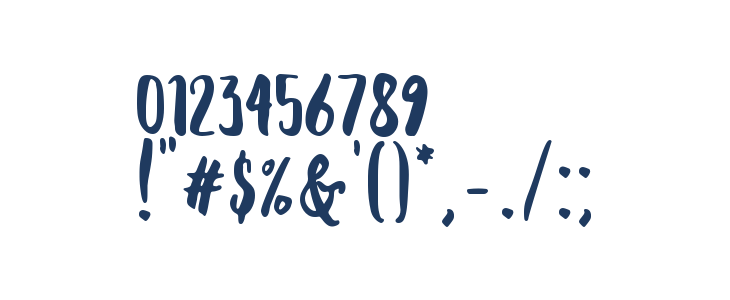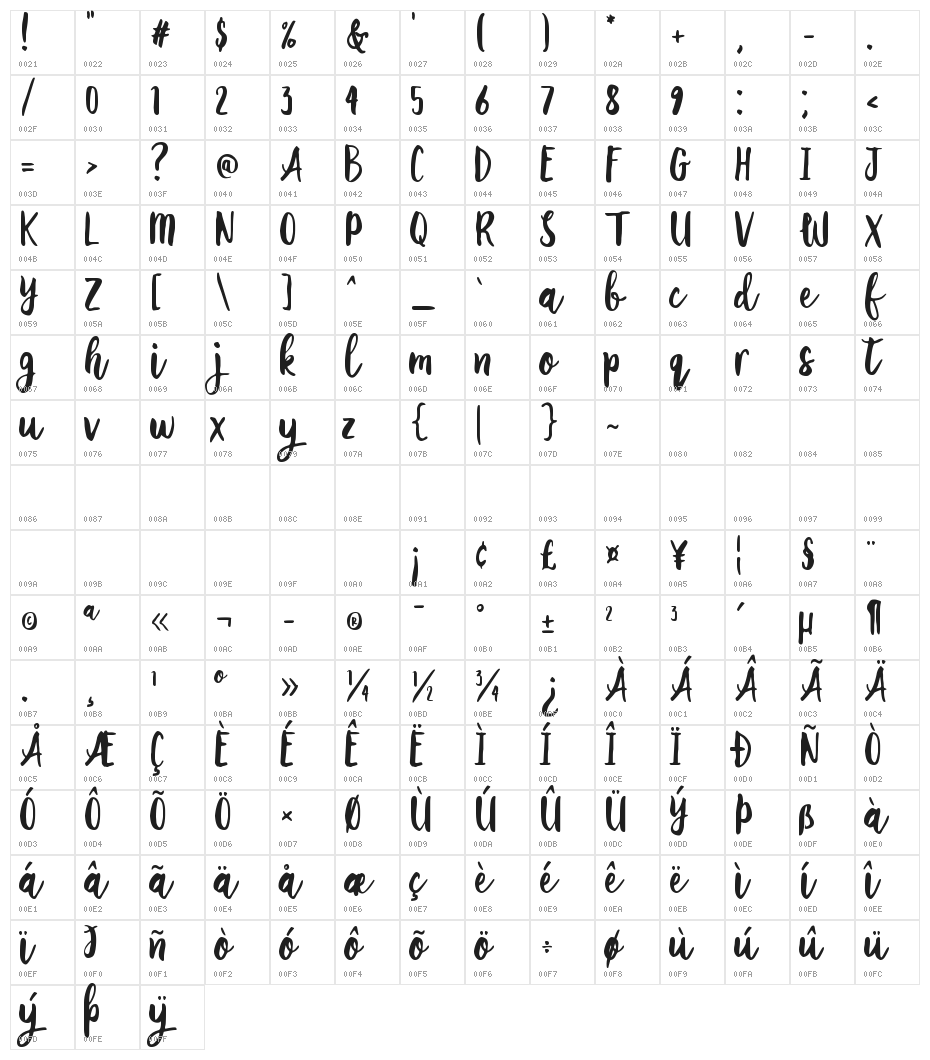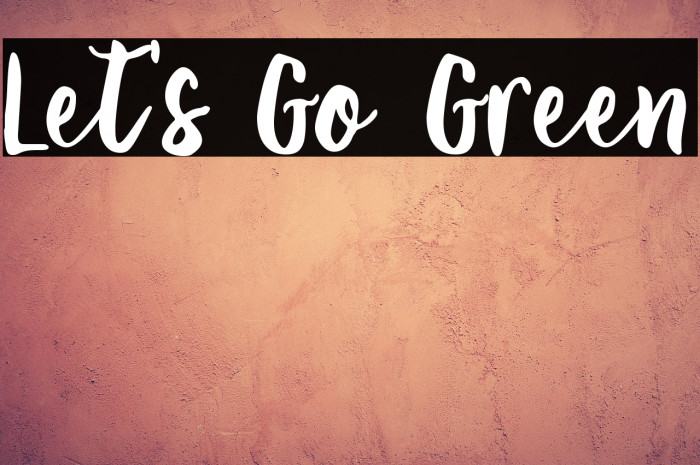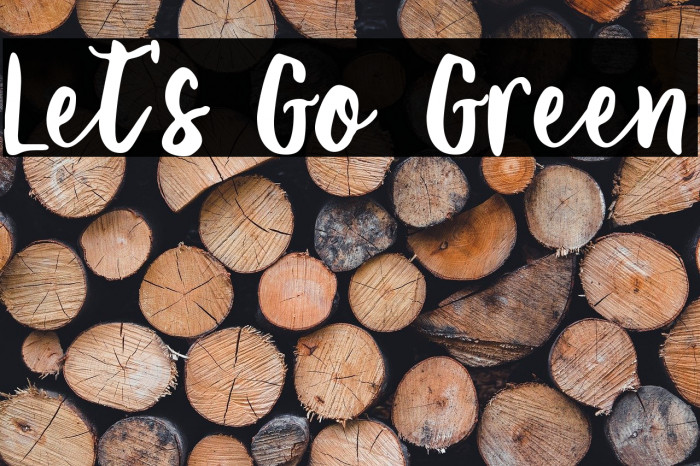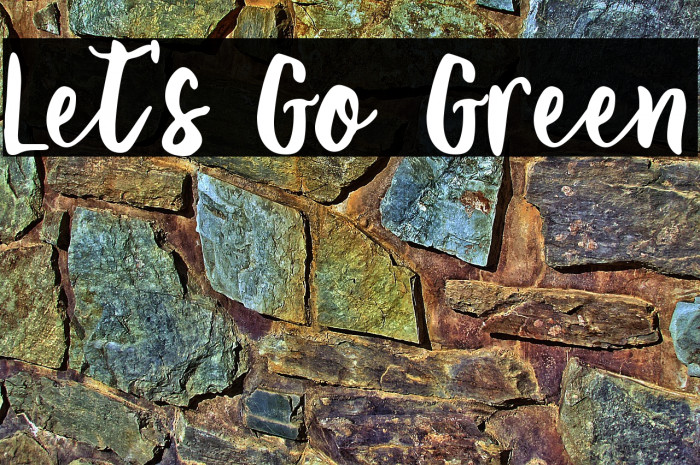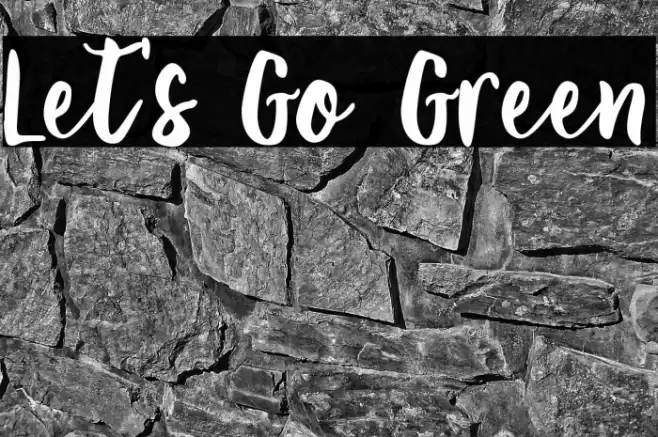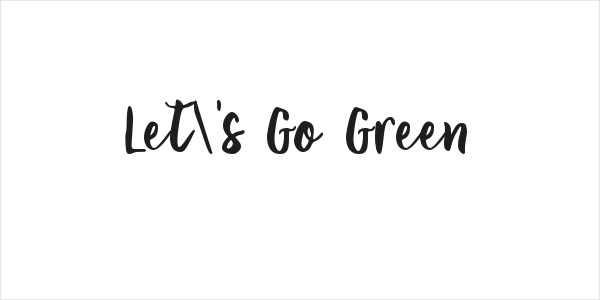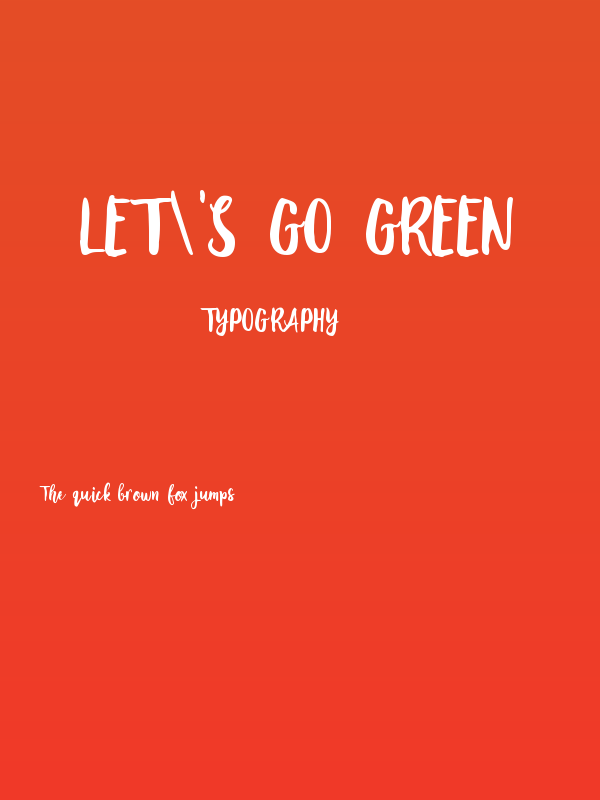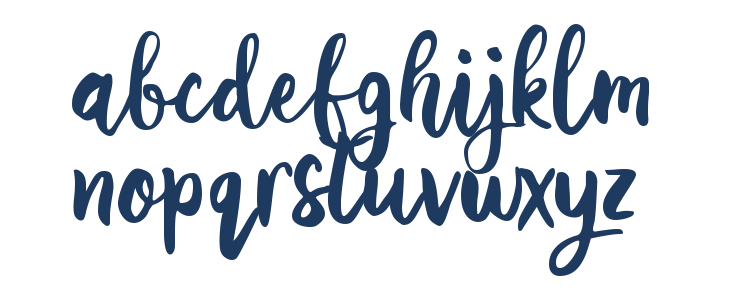
Let's Go Green Font
Let's Go Green Description
This font features a lively and energetic handwritten style, characterized by its bold and flowing letterforms. The uppercase and lowercase letters exhibit a playful and informal aesthetic, with slightly irregular strokes that add a personal touch. The numbers and special characters maintain this whimsical style, making the font suitable for creative and expressive projects. The overall appearance is dynamic and engaging, perfect for capturing attention and conveying a sense of fun and creativity.